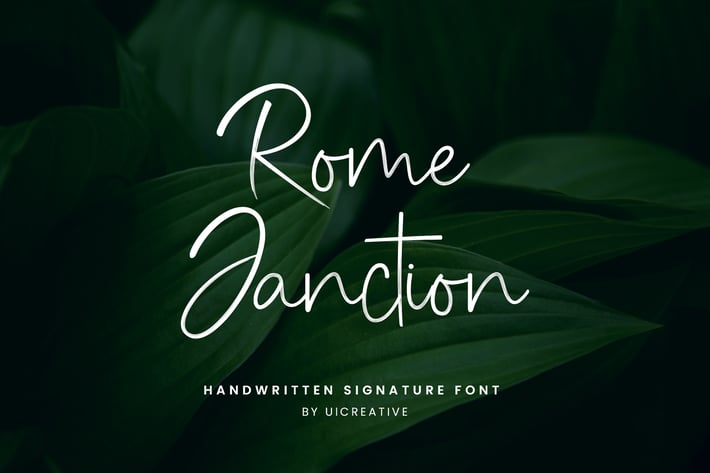
Rome Janction Handwritten Signature Font
Introducing our new product the name is Rome Janction Handwritten Signature Font. Handwritten Signature Font that feels beautiful classy, elegant, and modern. This font is ideally suited for a wide variety of projects, such as signature, stationery, logo, wedding, typography quotes, magazine or book covers, website headers, clothing, branding, packaging design, and more. Also, fashion-related branding or editorial design displays both masculine and feminine qualities.